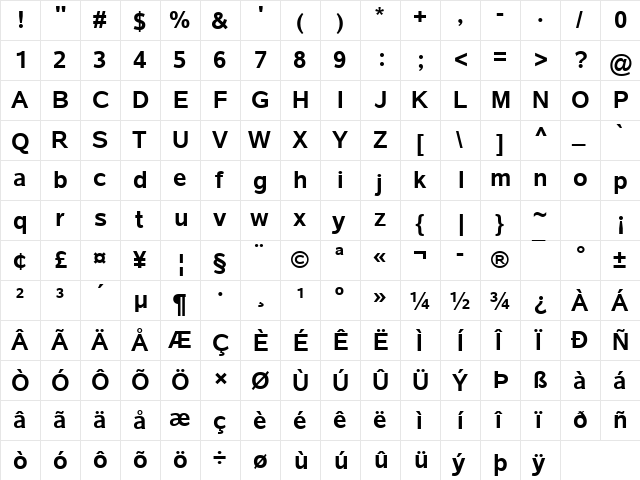
Albany Bold
| Foundry | Agfa Monotype Corporation |
| Designer | Agfa Monotype Drawing Office |
Design Context for Albany Typeface
Albany is a composed and adaptable typeface that performs quietly and consistently across a wide range of design contexts. Its bold stroke weight gives it real presence on the page.